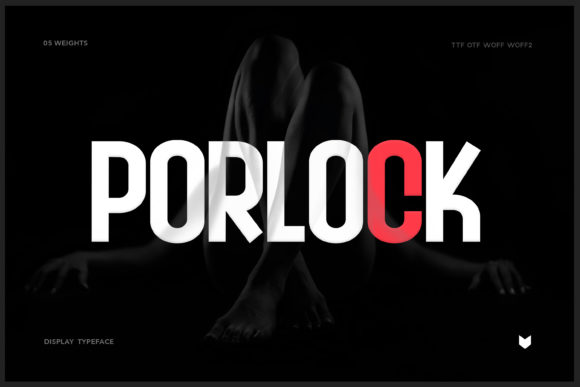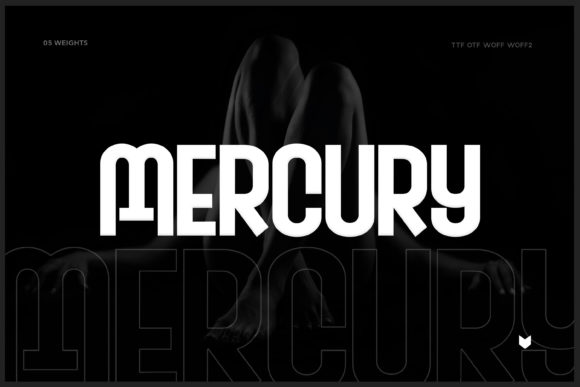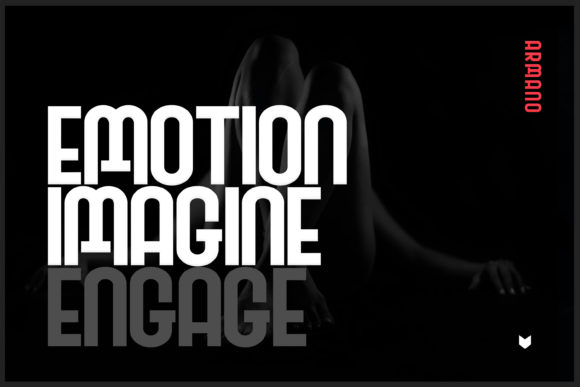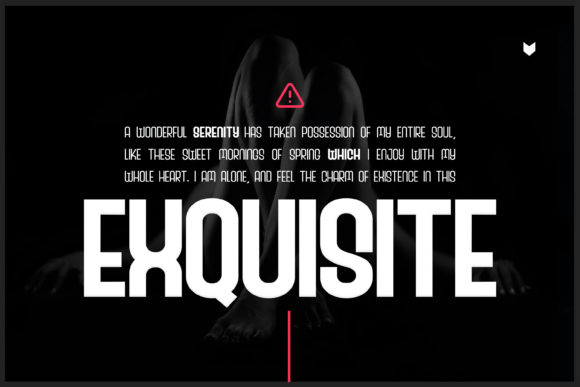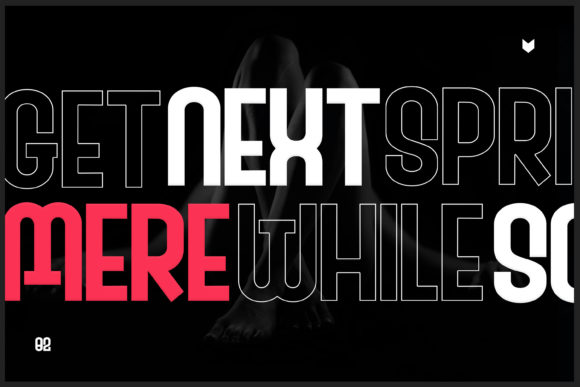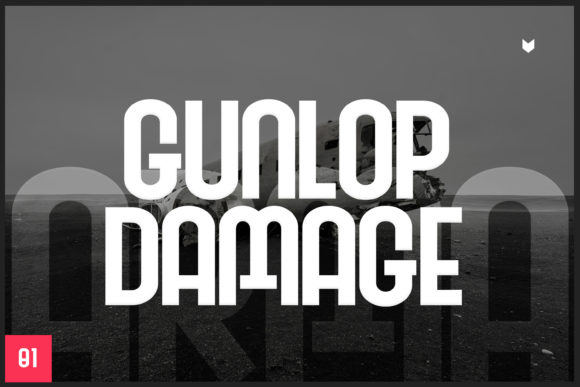
Introducing Armano Font: The Ultimate Modern Display Font
Are you tired of using the same old fonts for your designs? Look no further than Armano Font, a cool and bold display font that’s perfect for adding a modern touch to your projects. In this article, we’ll dive into the features and benefits of Armano Font, and explore how it can elevate your designs to the next level.
What is Armano Font?
Armano Font is a stylish and contemporary display font designed to make a statement. Its bold and sleek lines make it ideal for use in a variety of design applications, from web designs and business cards to posters and flyers. Whether you’re a designer, craftsperson, or DIY enthusiast, Armano Font is the perfect choice for anyone looking to add a touch of modern sophistication to their work.
Key Features of Armano Font
So, what sets Armano Font apart from other fonts? Here are just a few of its key features:
- Bold and eye-catching: Armano Font is designed to grab attention, with bold lines and a confident style that’s sure to make your designs stand out.
- Modern and sleek: With its clean lines and minimalist aesthetic, Armano Font is perfect for designs that require a modern and sophisticated look.
- Highly versatile: Armano Font can be used in a wide range of design applications, from digital projects to print materials.
- Easily readable: Despite its bold style, Armano Font is surprisingly easy to read, making it perfect for use in body text as well as headlines.
How to Use Armano Font in Your Designs
Armano Font is incredibly easy to use, and can be incorporated into your designs in a variety of ways. Here are a few ideas to get you started:
- Web designs: Use Armano Font as a header font to add a bold and modern touch to your website.
- Business cards: Make a statement with Armano Font on your business cards, and stand out from the crowd.
- Posters and flyers: Use Armano Font to create eye-catching headlines and add a touch of sophistication to your print materials.
- Social media graphics: Add a modern touch to your social media graphics with Armano Font, and make your posts stand out.
Tips for Getting the Most Out of Armano Font
To get the most out of Armano Font, here are a few tips to keep in mind:
- Use it sparingly: While Armano Font is bold and eye-catching, it can be overwhelming if used too much. Use it sparingly to create a focal point in your design.
- Pair it with a complementary font: For body text, pair Armano Font with a complementary font that’s easy to read.
- Experiment with different colors: Armano Font looks great in a variety of colors, so don’t be afraid to experiment and find the perfect hue for your design.
Armano Font is a powerful and versatile display font that’s perfect for designers, craftspersons, and DIY enthusiasts. With its bold and modern style, it’s ideal for adding a touch of sophistication to a wide range of design applications. Whether you’re creating web designs, business cards, or print materials, Armano Font is the perfect choice. So why wait? Download Armano Font today and take your designs to the next level!